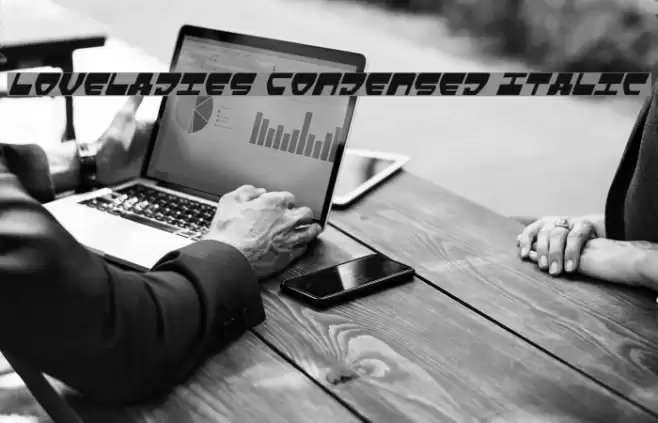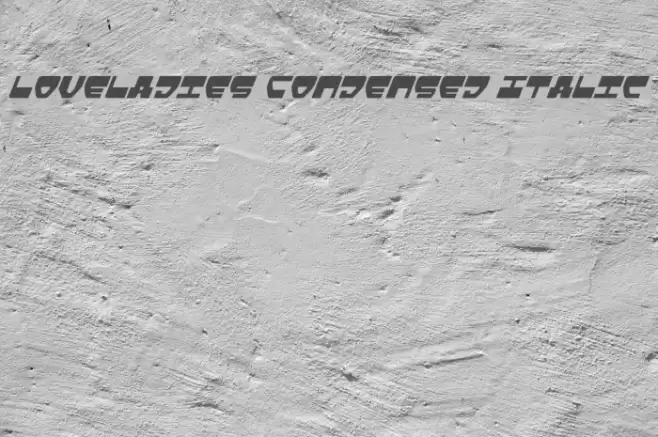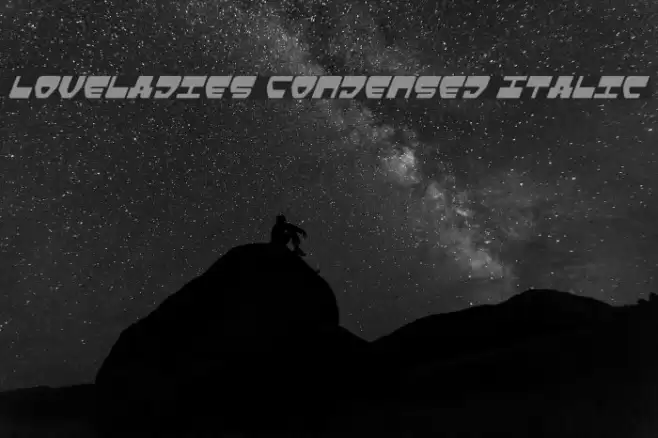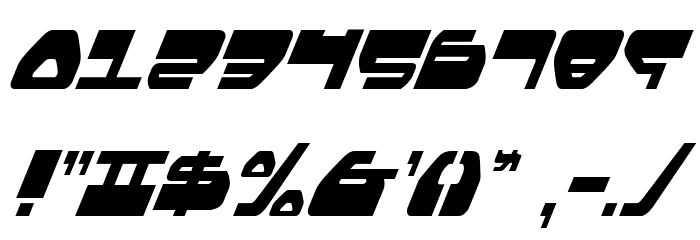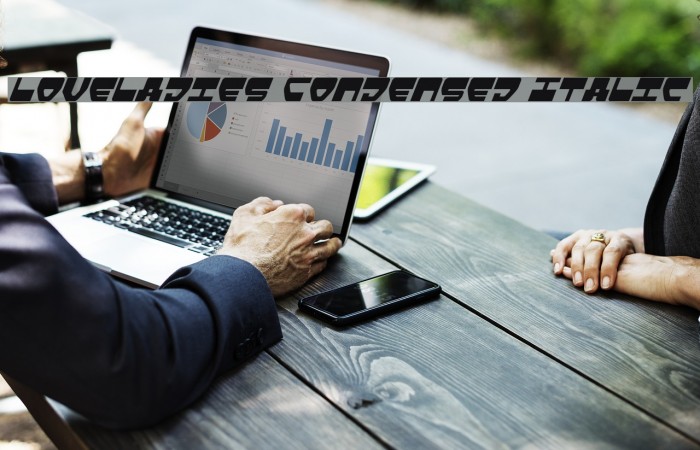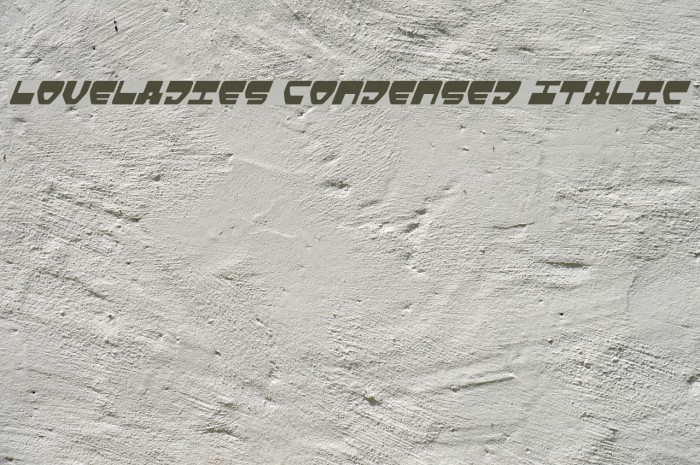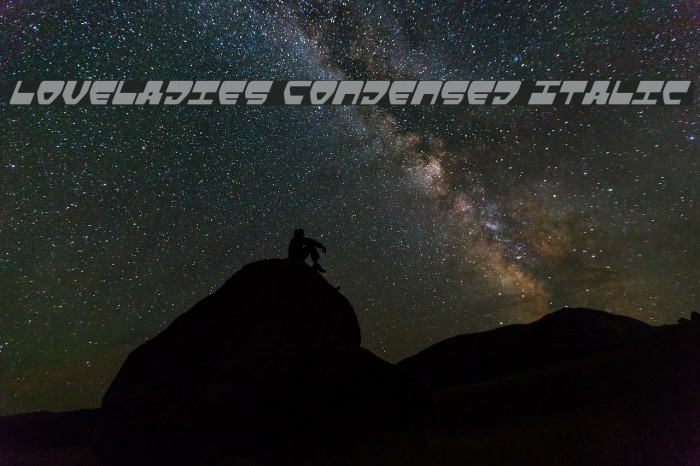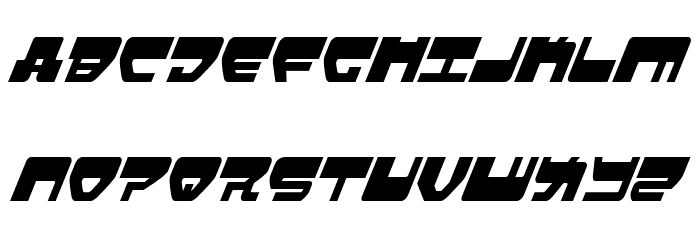
Loveladies Condensed Italic Font
Loveladies Condensed Italic Description
This font features a bold, condensed style with a distinct italic slant, giving it a dynamic and forward-moving appearance. The characters are tightly spaced, enhancing its compact look. The strokes are thick and consistent, providing a strong visual impact. The design incorporates sharp angles and geometric shapes, contributing to a modern and futuristic aesthetic. The uppercase and lowercase letters maintain a uniform height, while the numerals and special characters are designed to match the overall style, ensuring coherence across all elements.
A bold, condensed italic font with a modern, geometric style from Uncategorized fonts.
- Proposed Projects: Ideal for futuristic branding, tech-related projects, sports team logos, and dynamic poster designs.
- Character Spacing: Tight